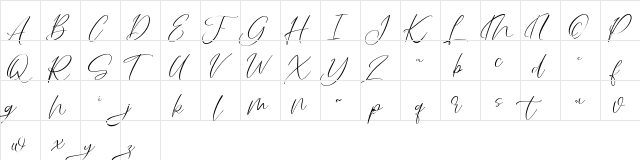
Salting FREE Regular Font Preview
Salting FREE Regular
Design Context for Salting FREE Typeface
Salting FREE is a composed and adaptable typeface that performs quietly and consistently across a wide range of design contexts.